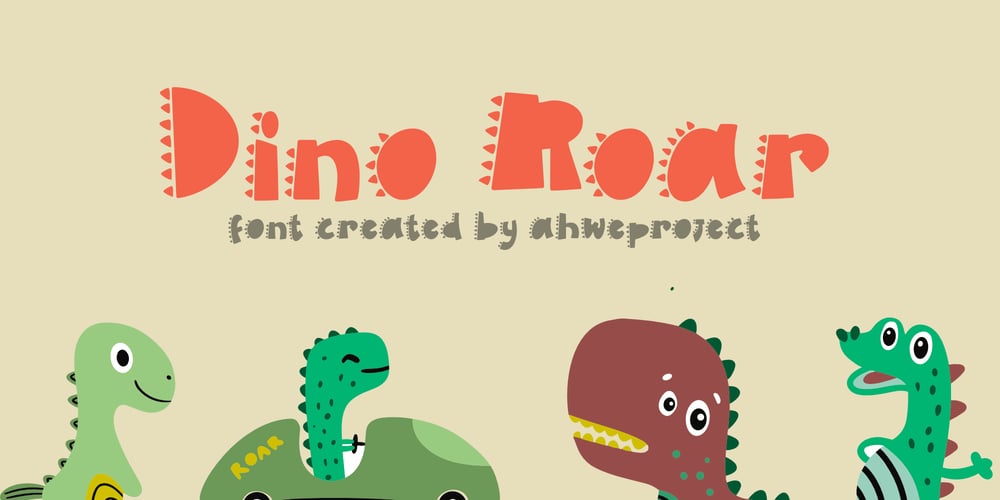
Dino Roar Font Family was designed by Dida Ahluddin and published by ahweproject. Dino Roar contains 4 styles and family package options. Dino Roar is a display font, inspired by Dinosaur. This font is suitable for dinosaur-themed designs. It is also perfect for invitations, decorations, social media, stickers and so much more.